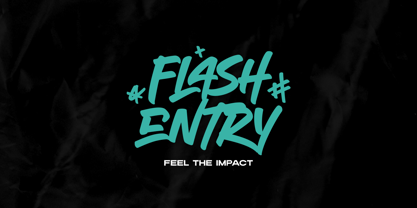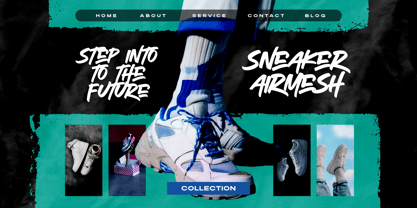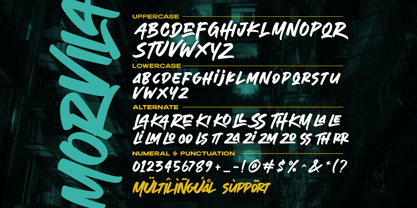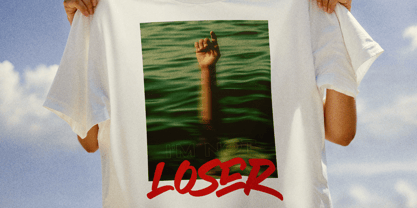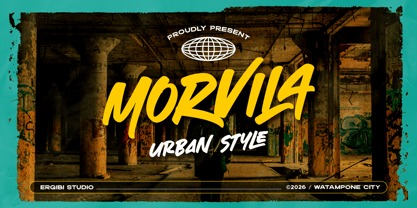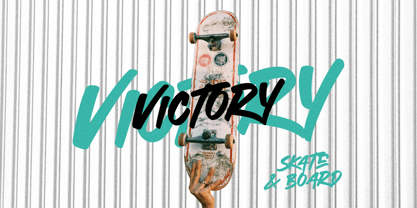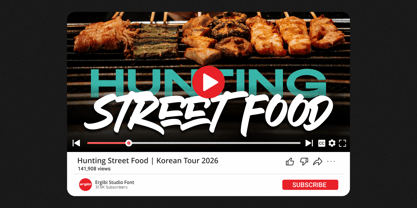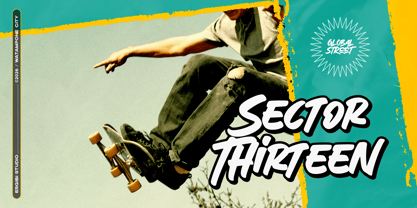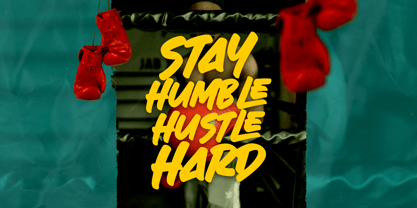
Morvila
by Ergibi Studio
The Morvila Font Family was designed by Riyadh Rahman and published by Ergibi Studio. Morvila contains 1 styles. More about this family
MORVILA is a bold yet smooth urban display typeface designed to deliver strong visual impact with a clean finish. Unlike rough brush or textured styles, MORVILA features solid, confident strokes with refined curves — creating a modern street aesthetic that feels powerful but polished. Built for standout headlines and expressive branding, MORVILA blends urban attitude with smooth readability. It’s perfect for designers who want a street-inspired look without heavy texture or grunge effects. I hope you enjoy this font. If you have any questions please don't hesitate to drop me a message Ergibi Studio
Designers: Riyadh Rahman
Current Foundry: Ergibi Studio